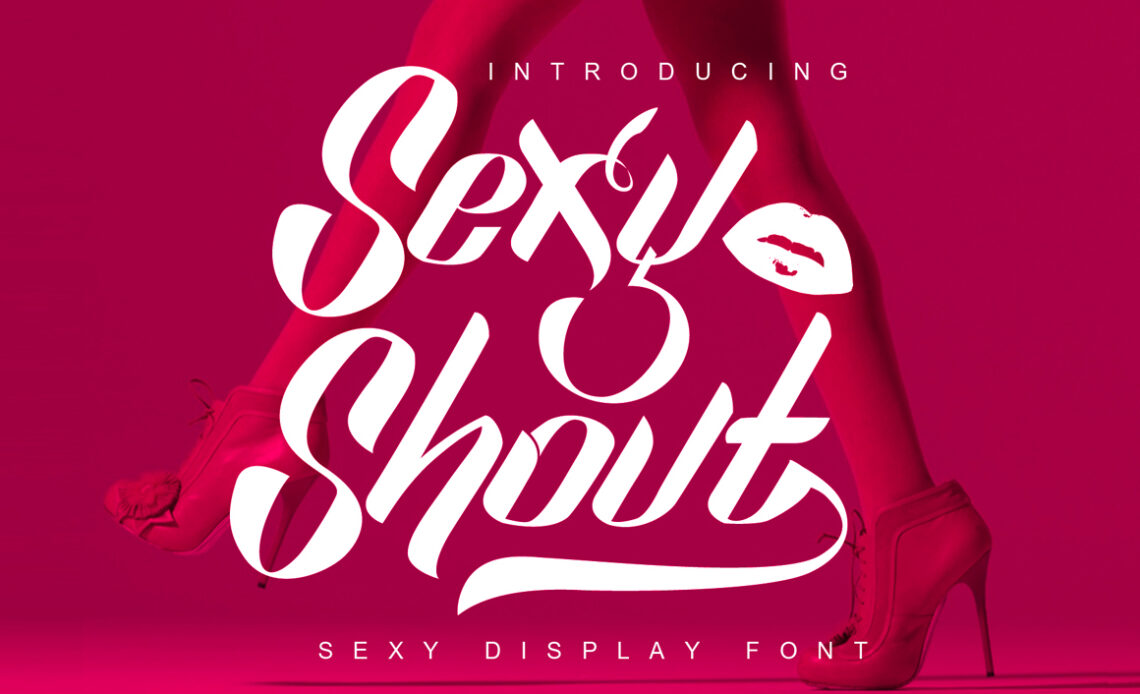
Journey into the realm of typographic allure with Sexy Shout, a display font that echoes the essence of playful seduction. This captivating typeface spells magic on your designs, inviting your audience to embark on a visual escapade. Its graceful curves and tantalizing swashes evoke a sense of allure, making it the perfect choice for projects that demand a touch of visual magnetism.
Sexy Shout Font: Where Seduction Meets Sophistication
Seductive Curves:
Sexy Shout's curves are like a siren's call, beckoning the eyes to linger and explore. Its fluid lines and organic shapes create a visual symphony that captivates and enchants.
Retro Charm with a Modern Twist:
This font masterfully blends the allure of the past with the vibrancy of the present. Its retro overtones lend a touch of nostalgia, while its modern aesthetics ensure that it remains relevant and captivating.
Sensual Swashes:
The swashes in Sexy Shout are like delicate brushstrokes that add an air of sensuality and grace to your designs. They're the perfect adornments to headlines, logos, and other design elements that demand attention.
Versatile Allure:
Sexy Shout is a font of many talents. Its versatility allows it to effortlessly adapt to a wide range of design projects, from playful posters to elegant invitations, from captivating social media posts to enchanting branding materials.